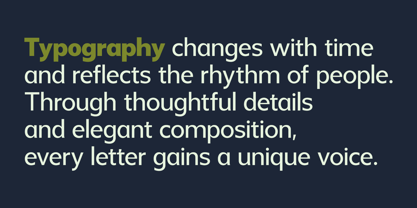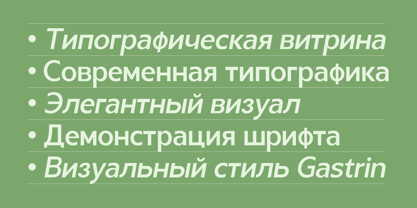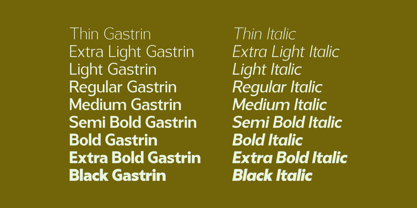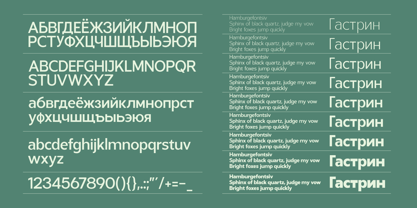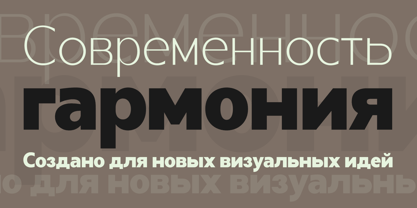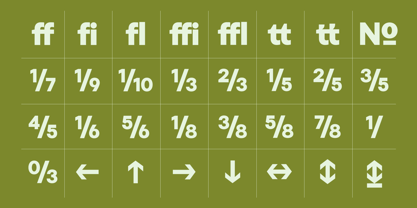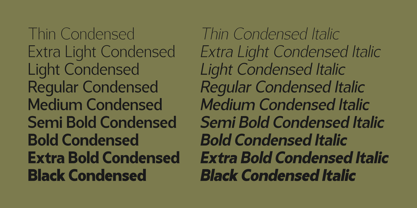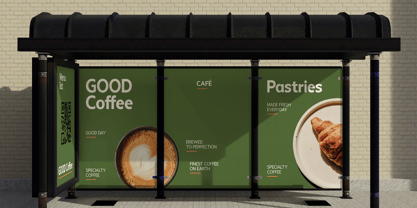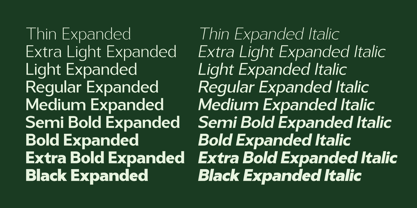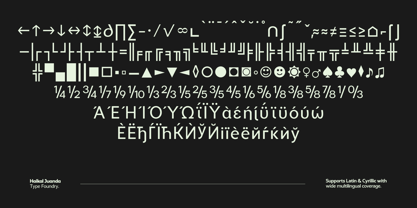
Gastrin
by Pista Mova
The Gastrin Font Family was designed by Haikal Juanda and published by Pista Mova. Gastrin contains 55 styles and family package options. More about this family
Introducing a modern sans serif typeface crafted with precision, clarity, and contemporary aesthetics. Designed to deliver a clean visual experience with balanced proportions, smooth curves, and refined geometric details that create a timeless professional style.
Weights from Thin to Black provide versatility for branding, editorial layouts, posters, websites, packaging, UI design, and contemporary visual identities. Elegant structure and clear readability create a sophisticated and flexible typeface suitable for print and digital projects.
Multilingual support includes Latin and Cyrillic character sets, making the font family ideal for international communication and modern global branding.